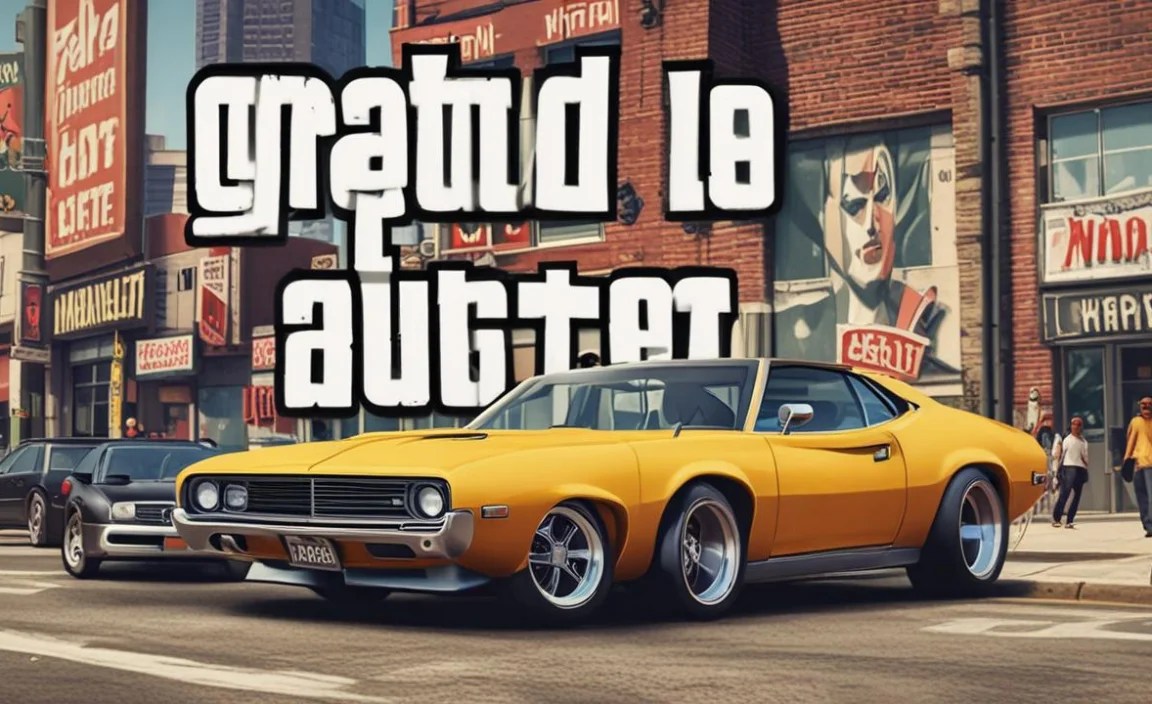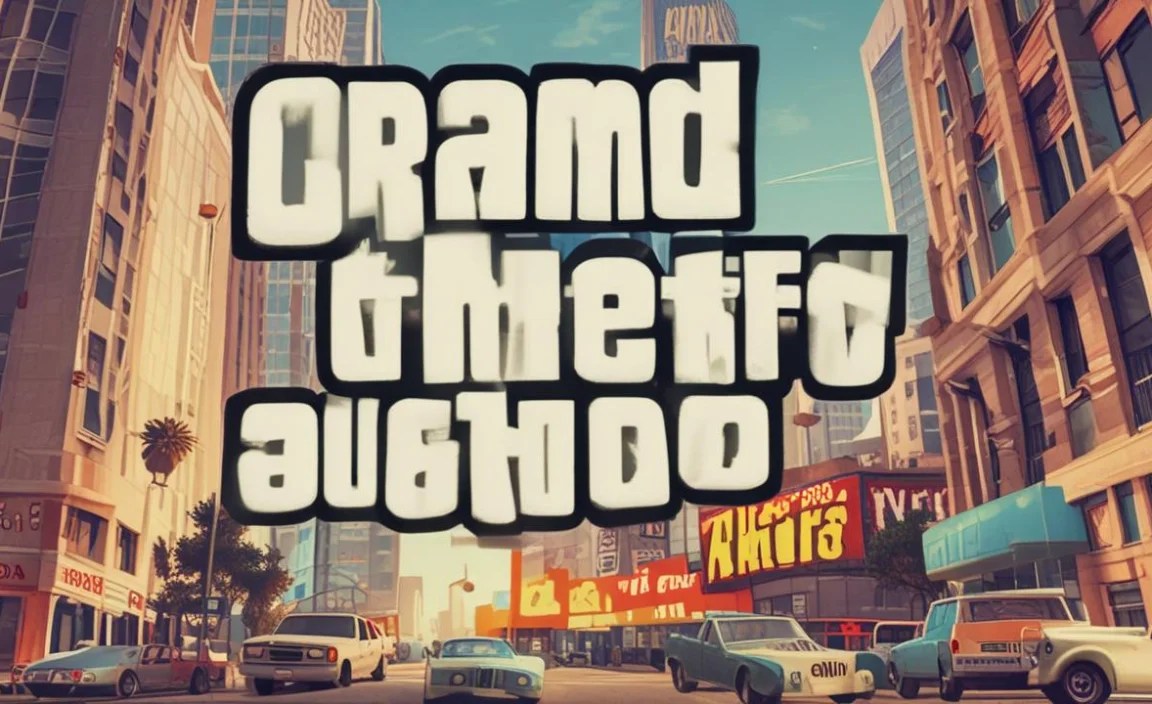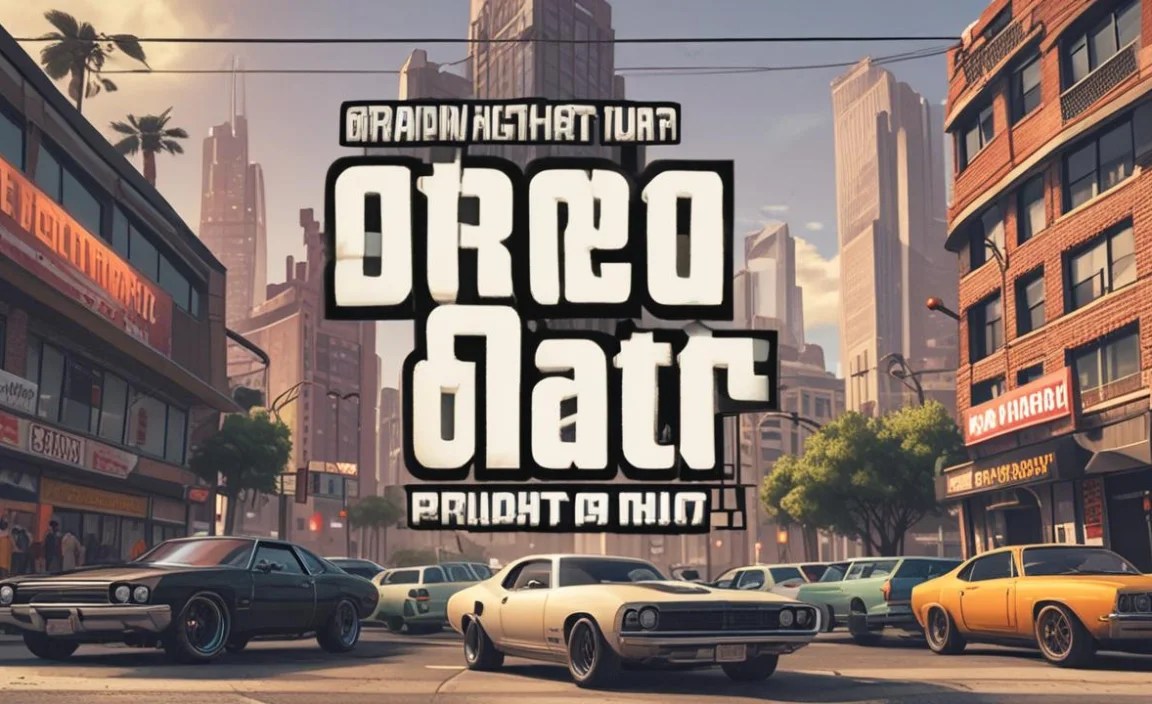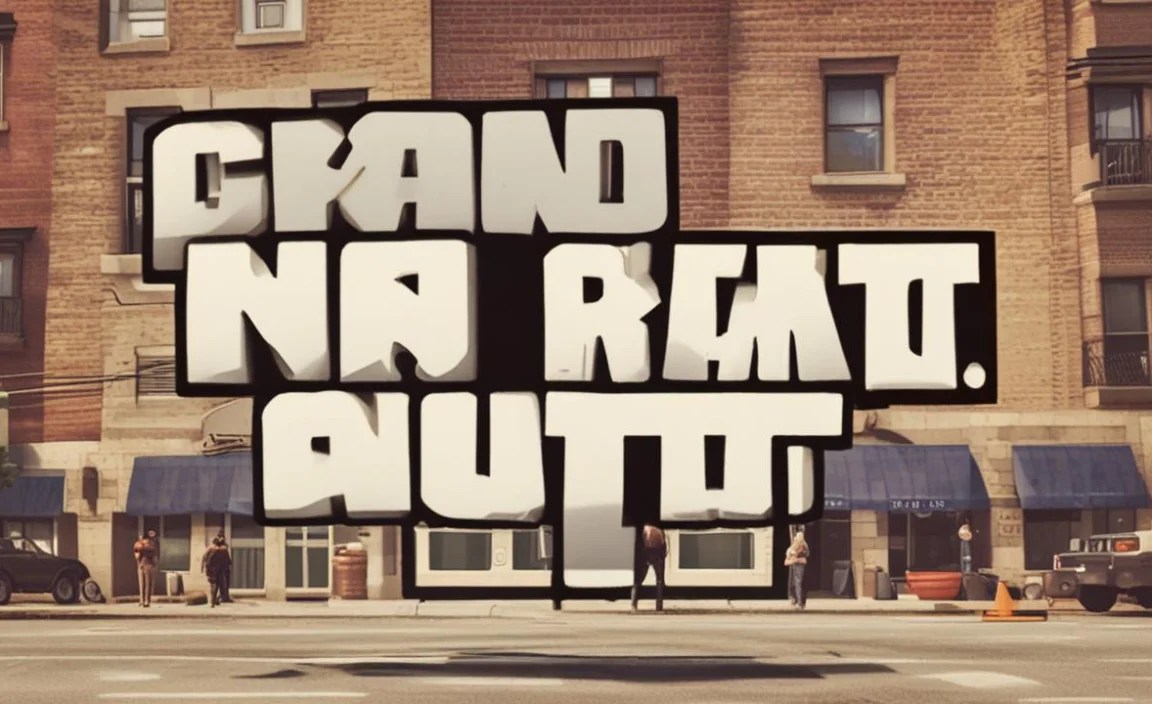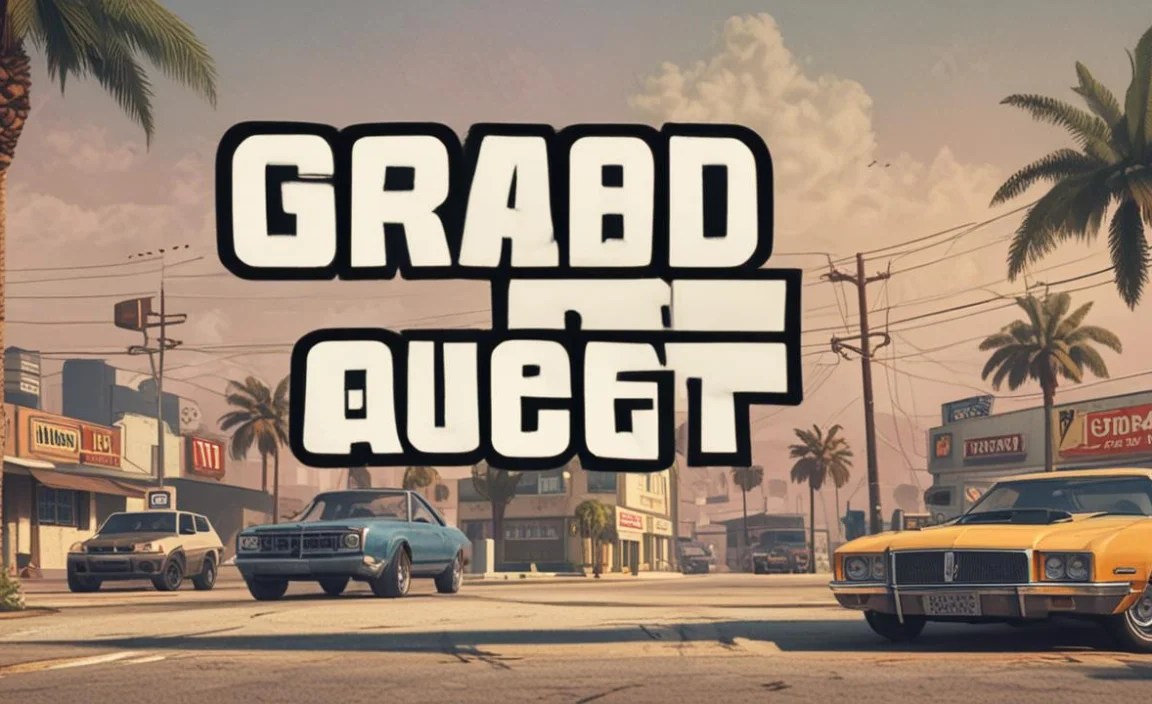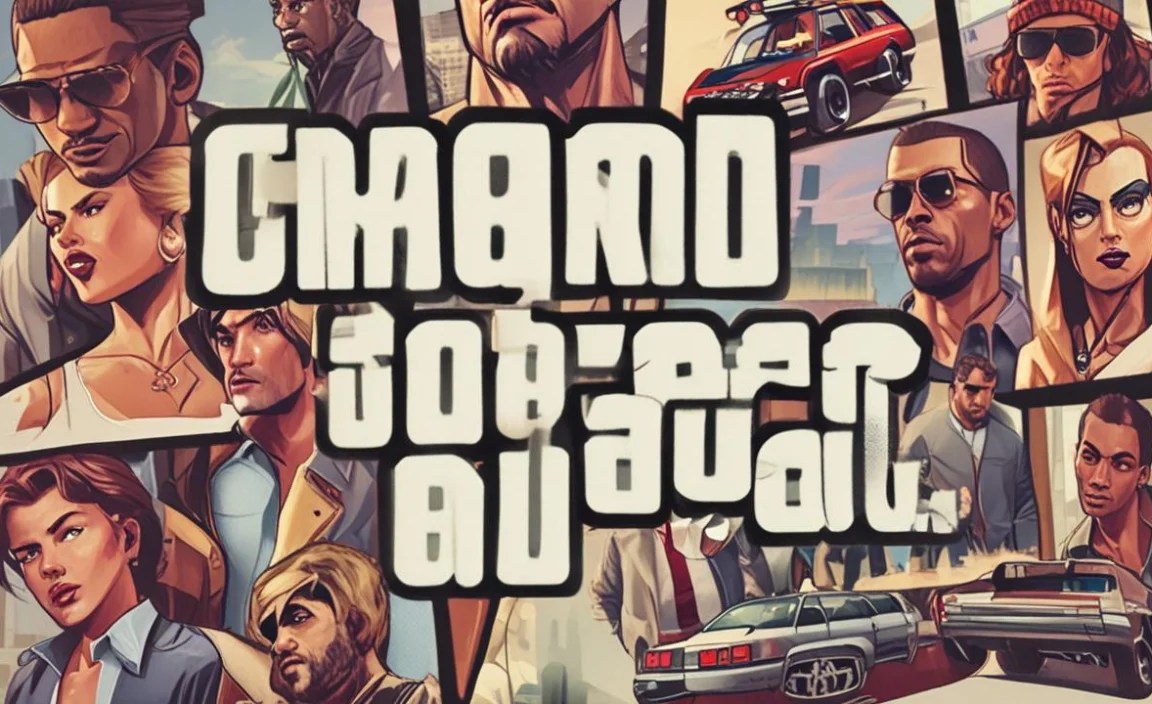
The Grand Theft Auto (GTA) series, developed by Rockstar Games, is one of the most successful video game franchises globally, known for its action-packed gameplay and iconic logo.
The font used in the Grand Theft Auto logo is very similar to Pricedown Black, a typeface designed by Typodermic Fonts. This font, widely recognized for its bold, geometric style, has become synonymous with the GTA series and is used in various game-related graphics.
Pricedown Black Information
| Name | Pricedown Black |
| Style | Sans Serif, Geometric, Bold |
| Designer | Typodermic Fonts |
| Type | Display, Decorative |
Grand Theft Auto Font Family Includes
- Pricedown Regular
Where Pricedown Black Is In Use
- Grand Theft Auto series: Used in the Grand Theft Auto III logo and across the GTA series.
- GTA Online: Featured in promotional banners and text graphics for the online version.
- San Andreas: Used in titles and marketing materials for GTA: San Andreas.
- Game Graphics: Frequently utilized in action and adventure game logos and promotional graphics.
- Posters: Common in movie or game posters due to its bold and impactful presence.
- Web Graphics: Used in web designs, particularly for tech and gaming-related websites.
- Signs and Banners: Frequently seen in digital advertisements and branding for action and crime-related content.
- Pair with: Impact
The heavy, condensed form of Impact pairs well with the bold, clean design of Pricedown Black, making it ideal for headers, game logos, and promotional materials.
2.What Is The Difference Between Pricedown Black And Other Pricedown Fonts?
Pricedown Black is a bolder and thicker version of the Pricedown font family, ideal for high-impact titles and logos.
4.Where Else Can Pricedown Black Be Used?
In game graphics, logos, posters, signage, web design, and promotional banners.
5.Is Pricedown Black Similar To Other Popular Fonts?
Yes, it has similarities to fonts like Bank Gothic and the Fortnite font due to its bold, geometric design.
8.What Types Of Projects Suit Pricedown Black?
Perfect for action-oriented designs, game logos, posters, banners, and high-tech promotional material.